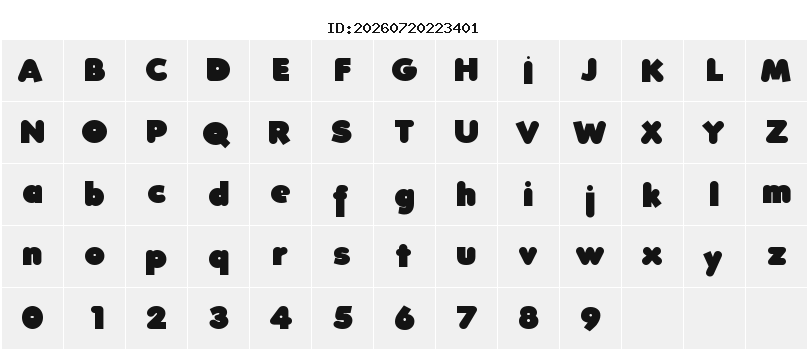
FolksXX Preview
• Font Name: FolksXX
• Font Style: Heavy
• Full Font Name: FolksXX Heavy
About FolksXX.ttf
FolksXX.ttf is a modern, elegant sans-serif font designed for ultimate readability and visual harmony. Perfect for branding, headlines, web design, and print materials.